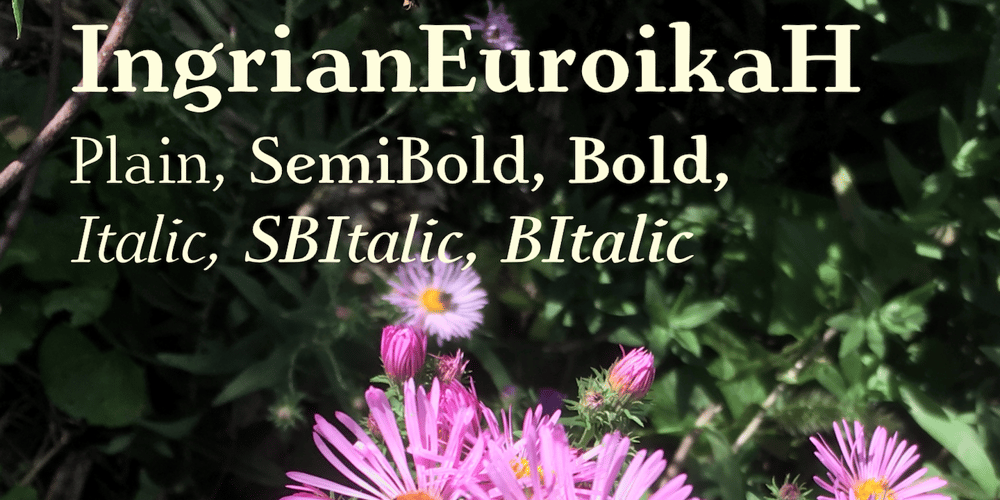
Ingrian Euroika
Ingrian Euroika font
Ingrian Euroika Font Family was designed by Robert Schenk and published by Ingrimayne Type. Ingrian Euroika contains 6 styles and family package options. In the 1990s Adobe’s MultipleMaster technology introduced interpolation into font editing programs. Though the obvious use of interpolation was to create an unlimited number of weights for a font, interpolation could also be used to crossbreed two completely different typefaces. IngrianEuroikaH is a hybrid resulting from such crossbreeding of two very different parents. Euroika is a decorative font with high contrast and thin, square serifs while Ingriana is a relaxed, informal typeface. IngrianEuroikaH was constructed in 1995-6; updates in 2012 and 2020 cleaned up many of the remaining oddities that resulted when parts of the parent fonts clashed. The family retains some peculiarities from the method of its construction but is highly readable as text.The IngrianEuroikaH family has six styles: regular, semibold, bold, italic, semibold italic and bold italic.